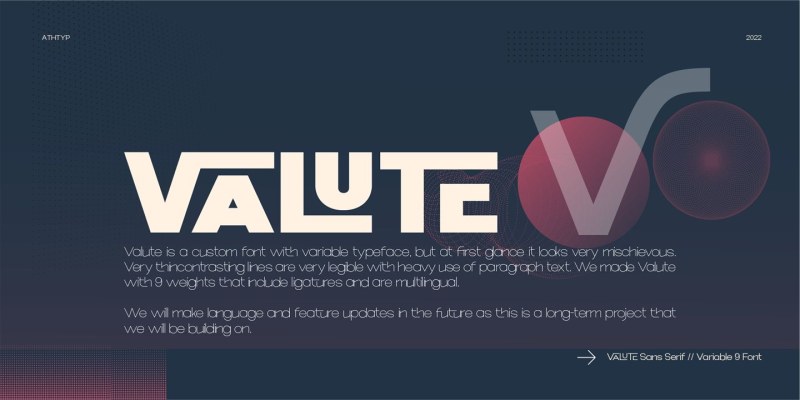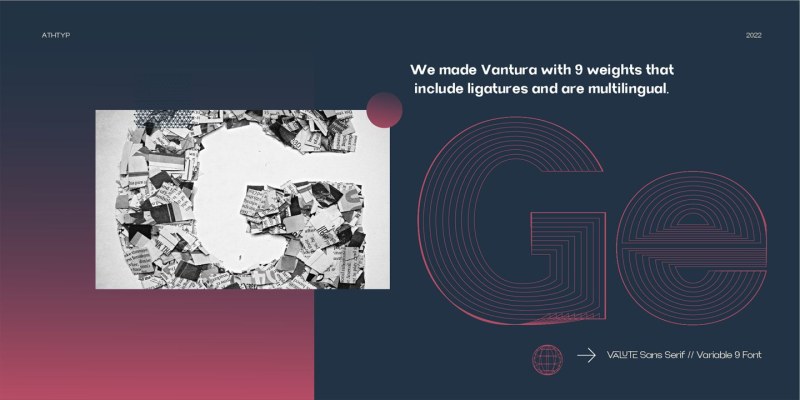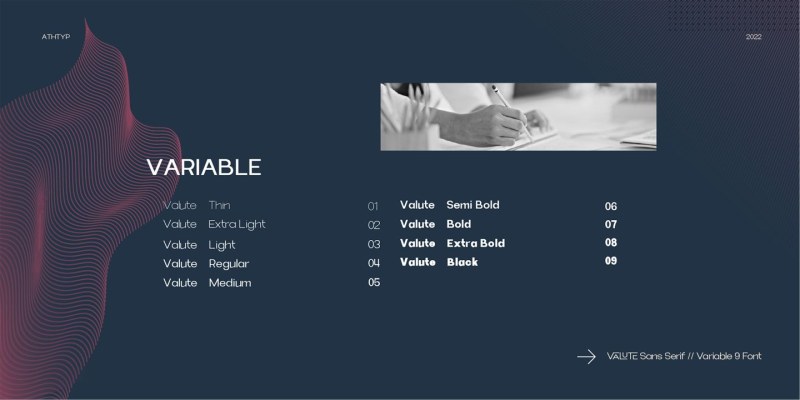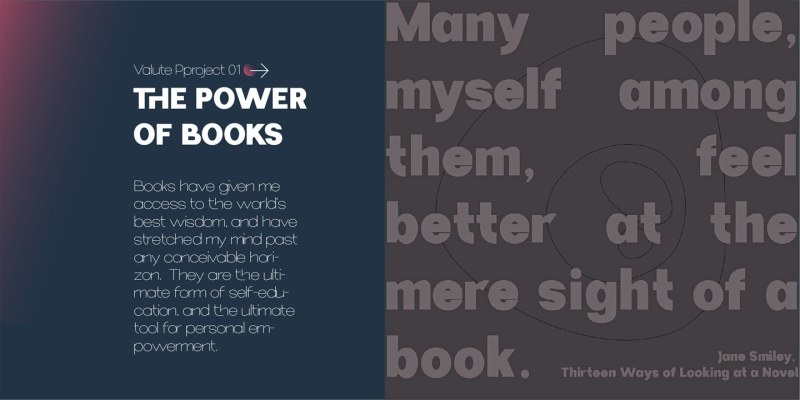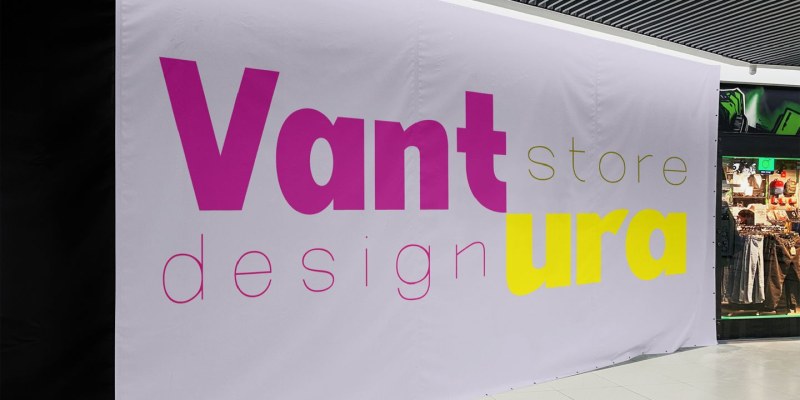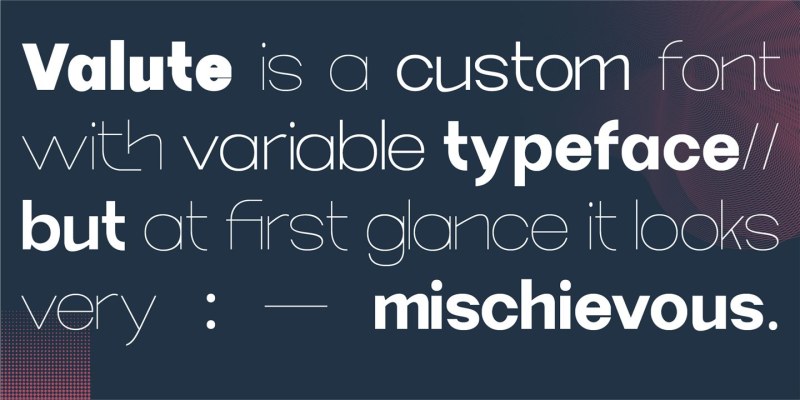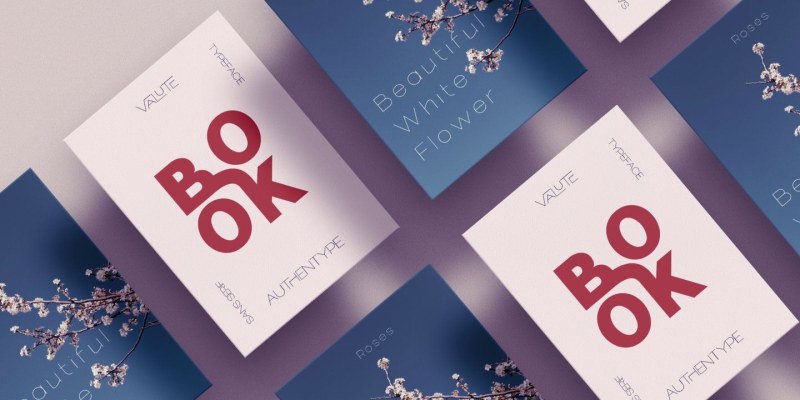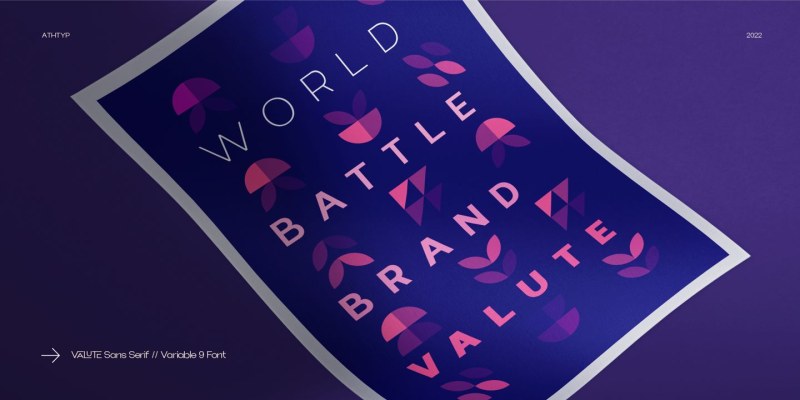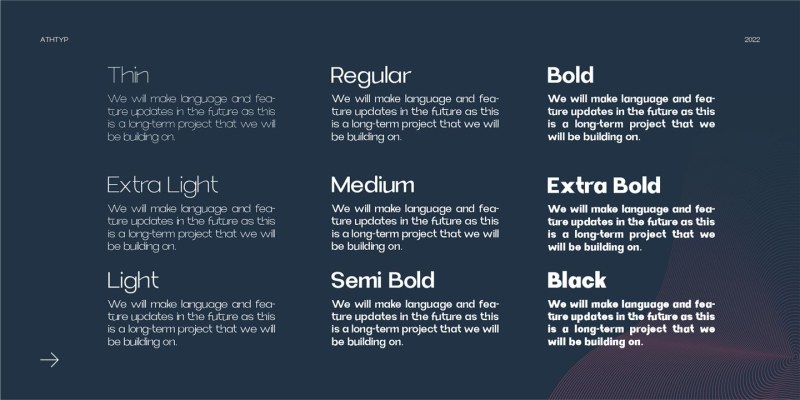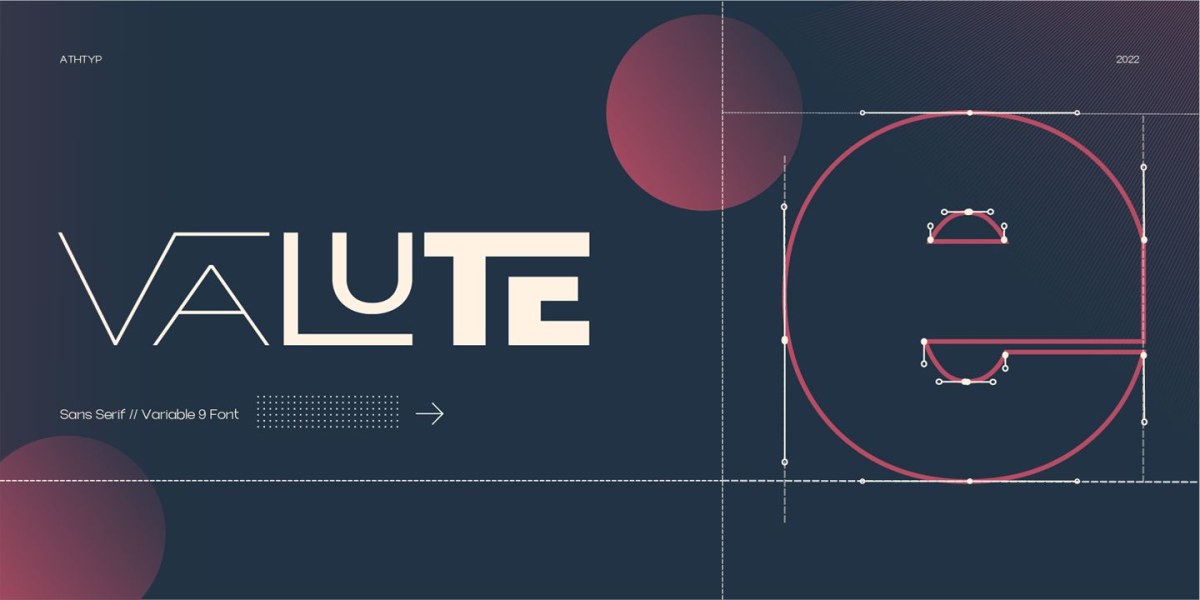
Valute Font Family
Valute is a custom font with variable typeface, but at first glance it looks very mischievous. Very thincontrasting lines are very legible with heavy use of paragraph text. We made Valute with 9 weights that include ligatures and are multilingual. We will make language and feature updates in the future as this is a long-term project that we will be building on.
Valute Font Family is a Sans Serif Fonts font that brings a professional and versatile look to your projects. Valute is a custom font with variable typeface, but at first glance it looks very mischievous.